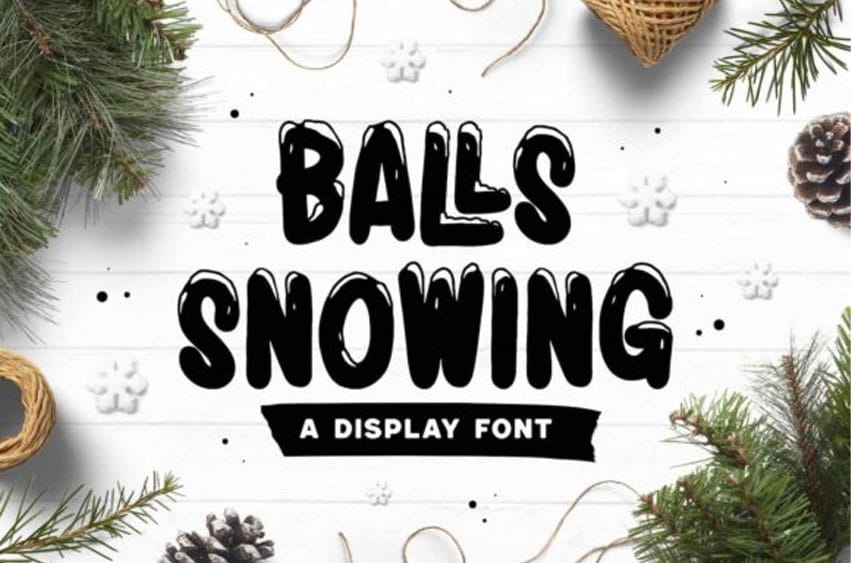
Balls Snowing Font is a fun and wintery display font. It works great on various designs related to the Christmas Holiday.
Use it for cards, invitations, winter parties and so on.